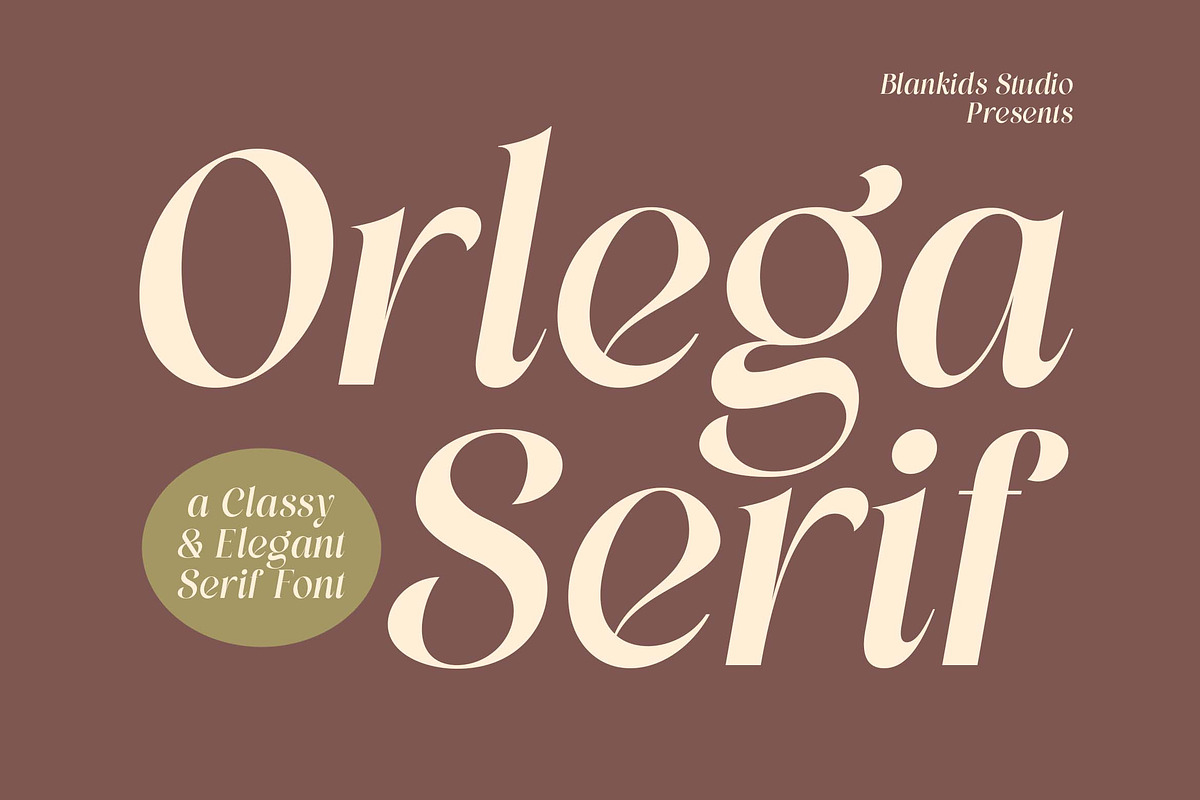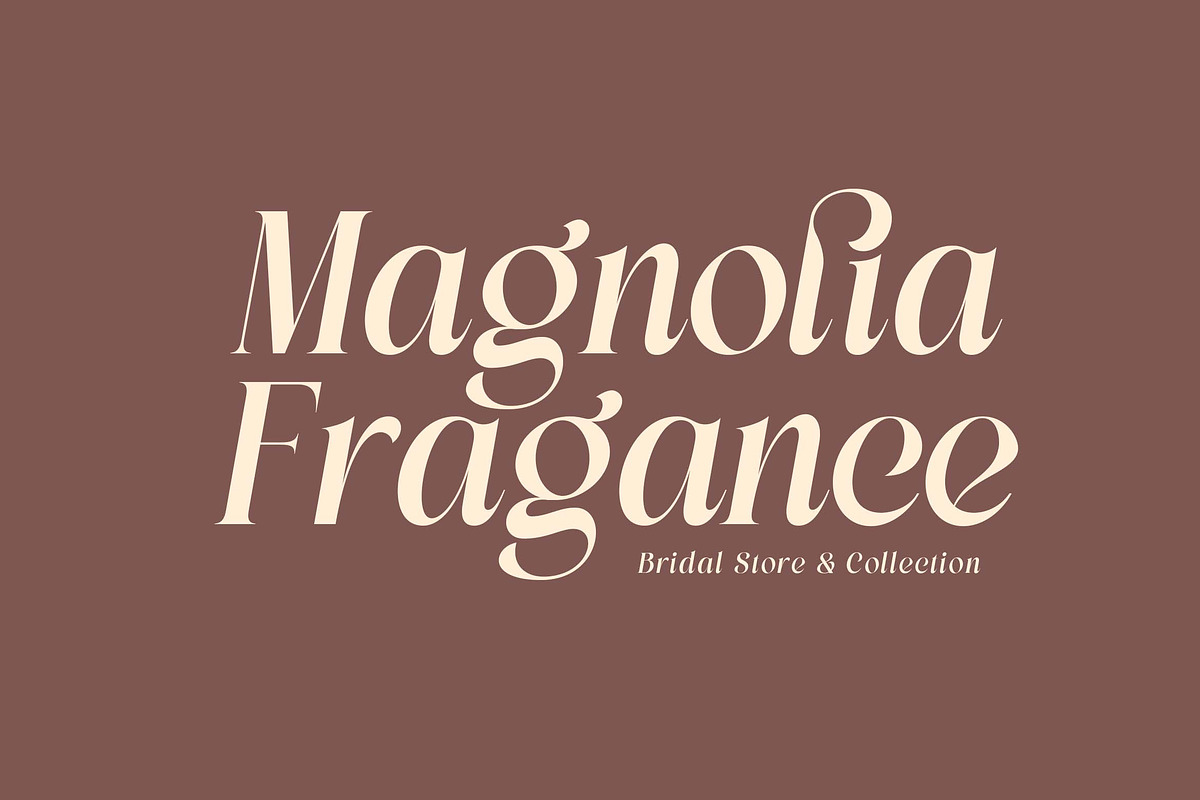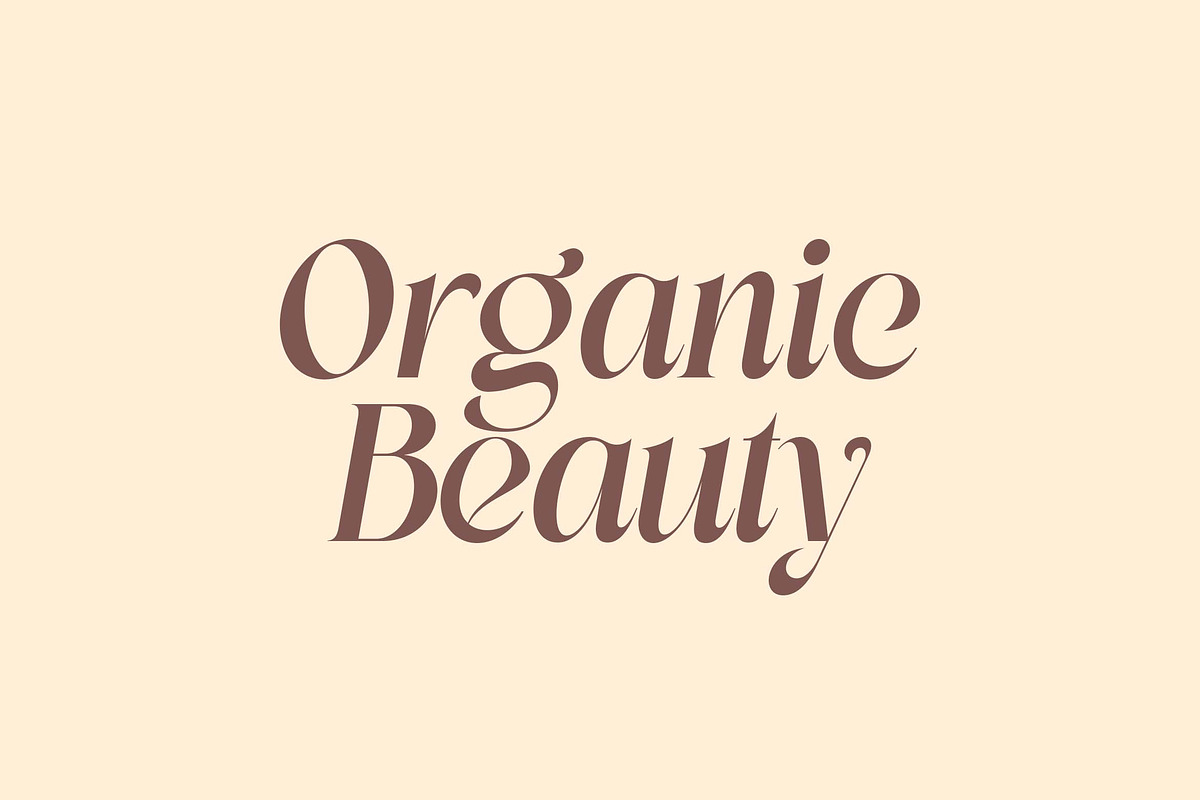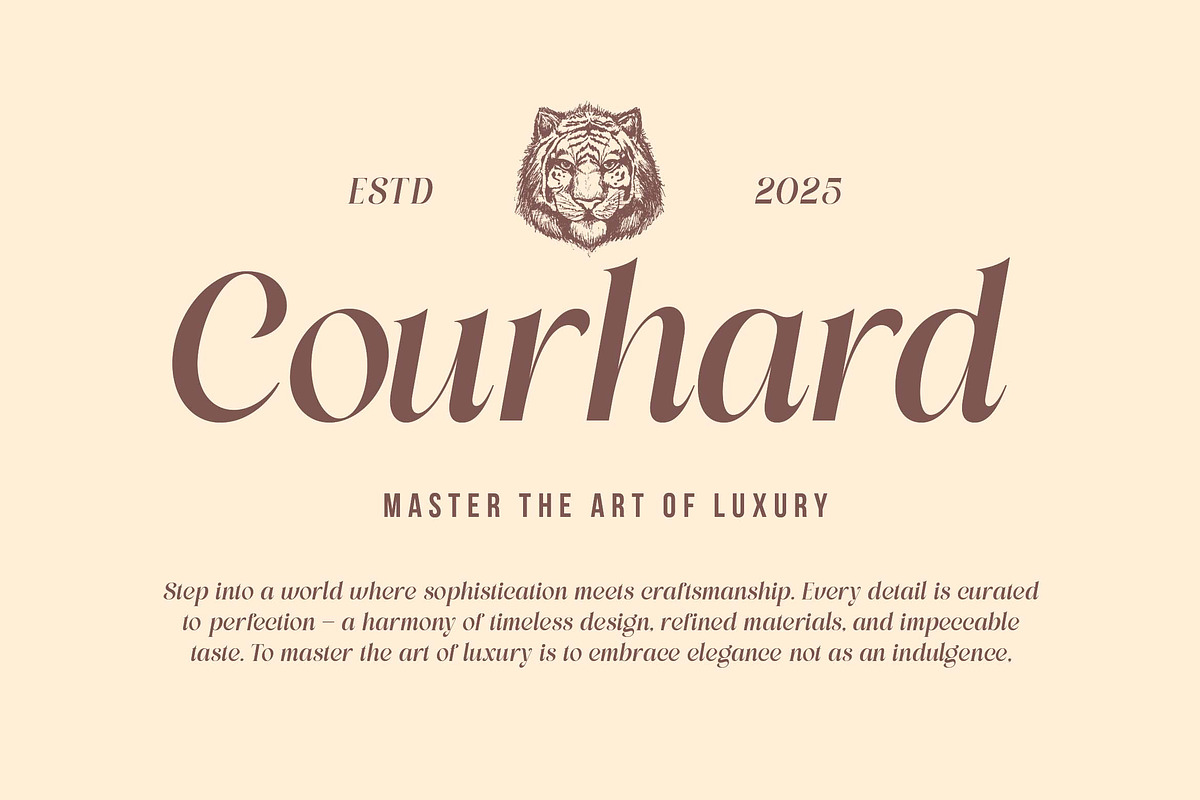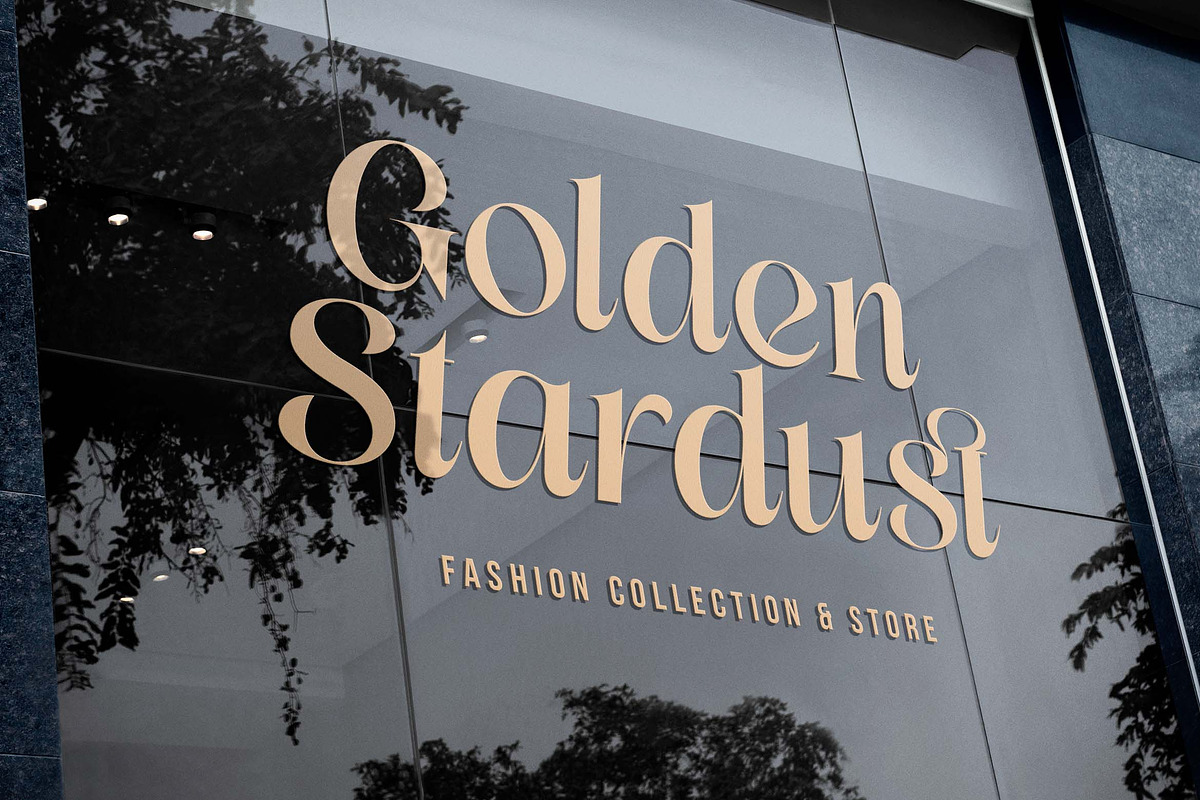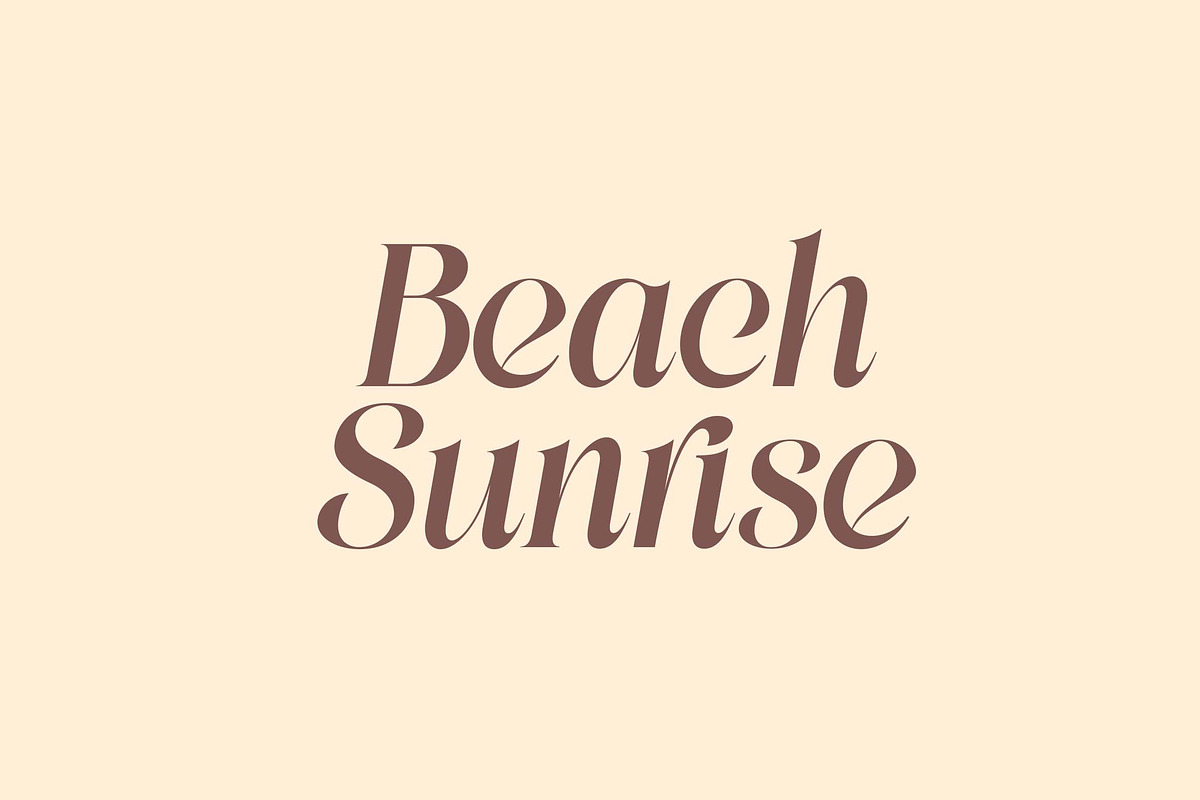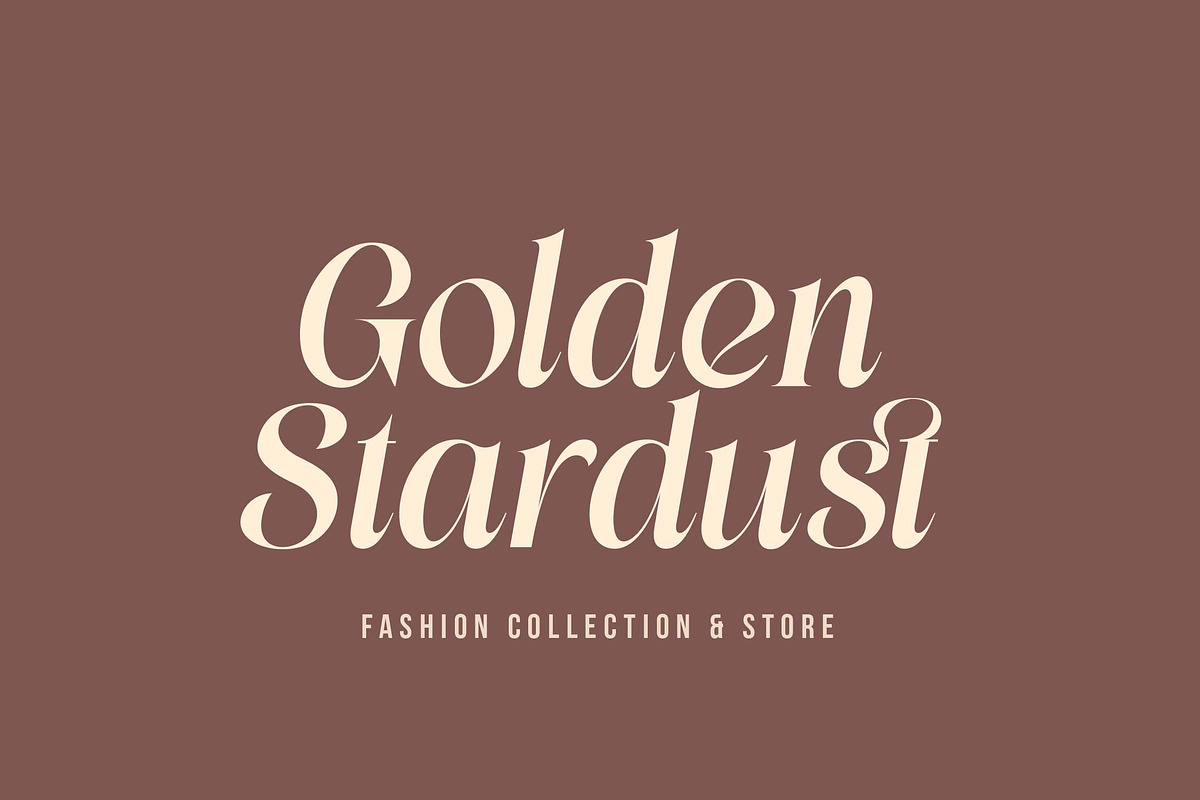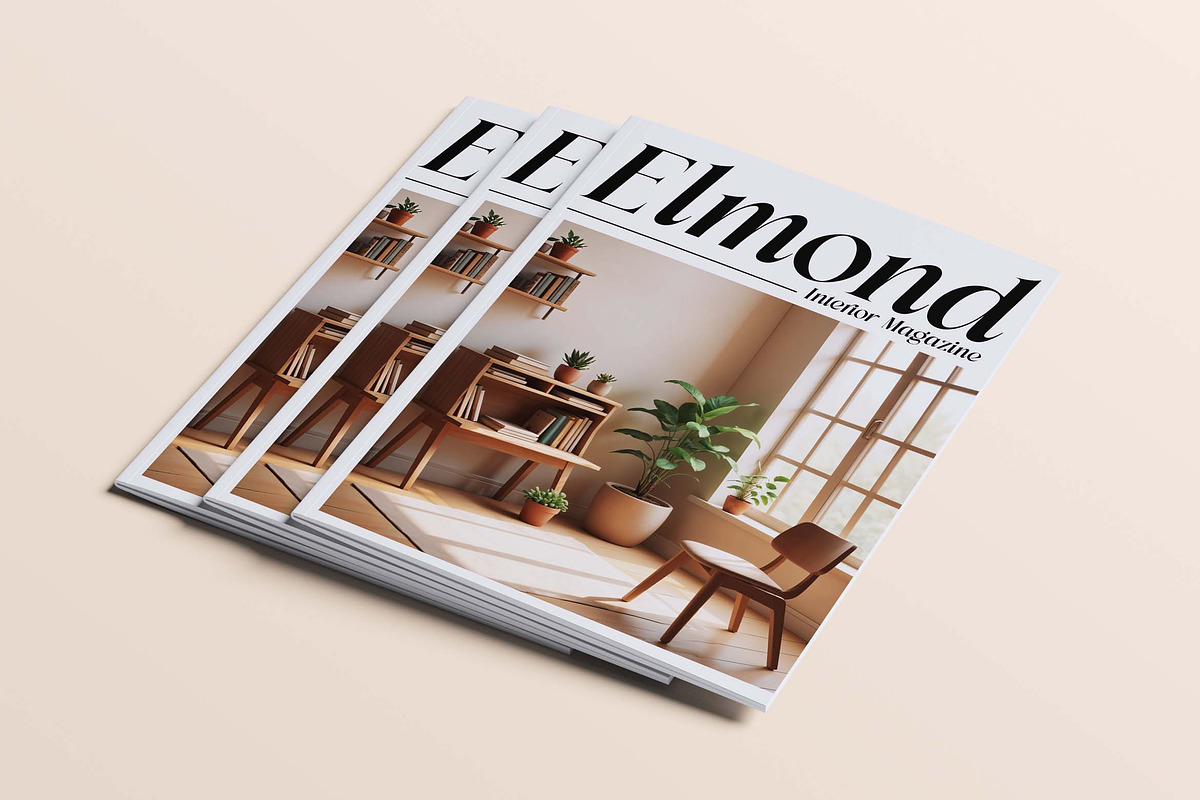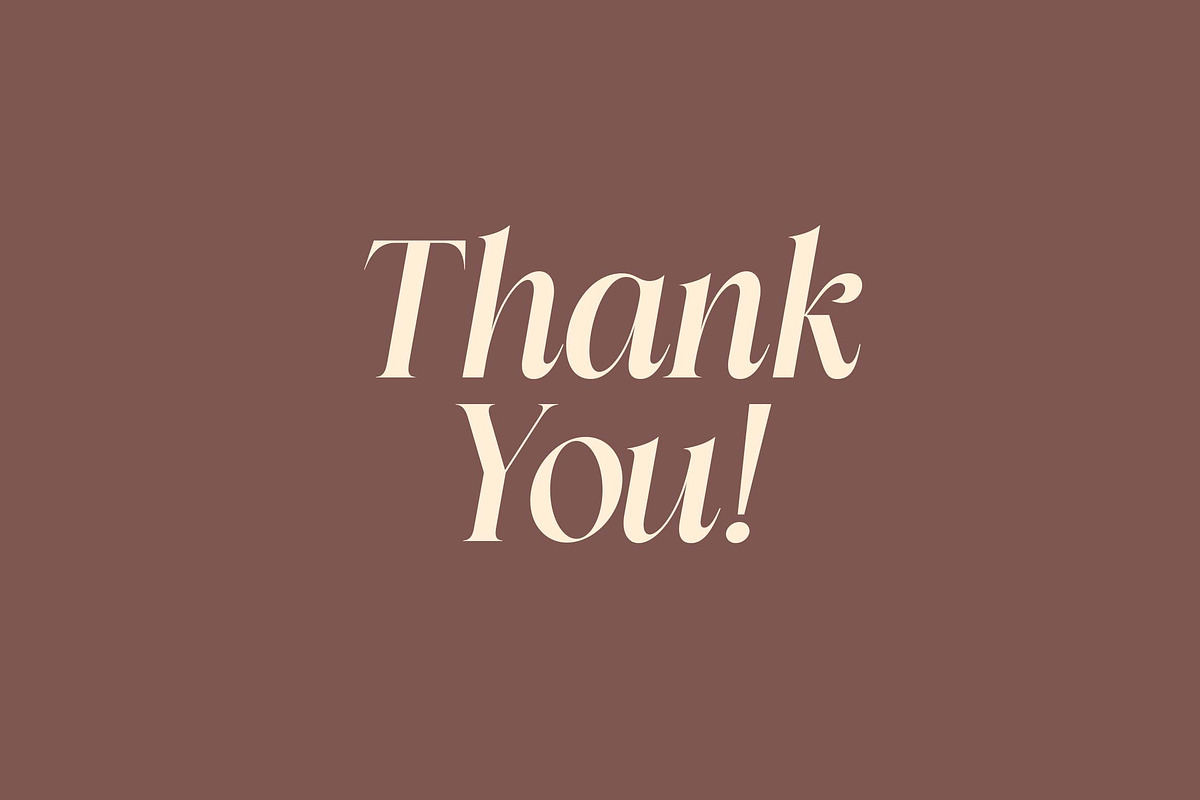
Orlega Serif a Classy & Elegant Font
Orlega Serif – Classy & Elegant Serif Font
Orlega Serif is a modern serif font with a timeless classic touch. Designed with graceful letterforms, smooth curves, and balanced contrast, it brings a sense of luxury, sophistication, and femininity to any design project.
- Luxury branding & logo design
- Fashion and beauty packaging
- Wedding invitations & stationery
- Editorial design and magazine headlines
- Elegant websites & social media graphics
- Numerals & punctuation
- Stylistic alternates & ligatures
Orlega Serif perfectly blends classic elegance with a modern aesthetic — ideal for designers who want to add a classy and timeless character to their creations.